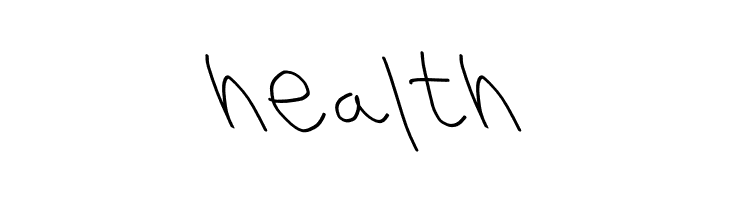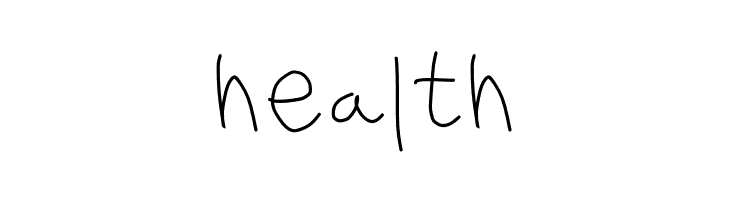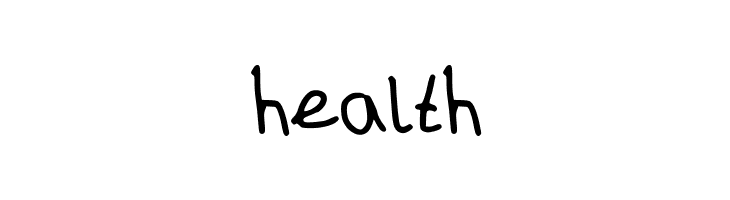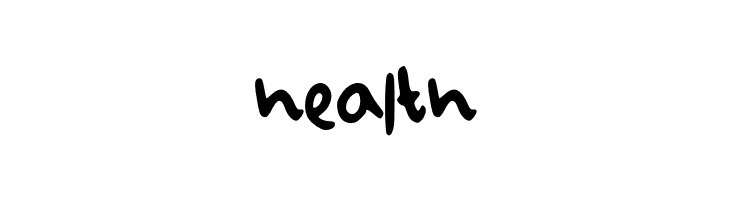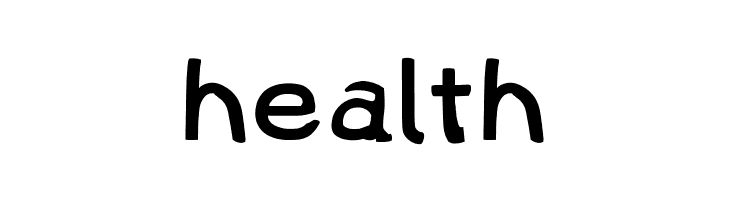
( Fonts by Mackenzie Rudd )
A casual, handwritten-style font with consistent strokes and a friendly appearance.
( Fonts by Phitradesign )
A playful, handwritten font with rounded, consistent strokes.
( Fonts by Jen Jones )
A playful, casual handwritten font with rounded, consistent strokes.
( Fonts by Ana )
A casual, handwritten font with a playful and dynamic style.